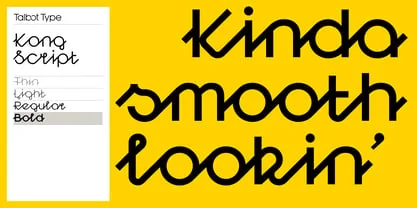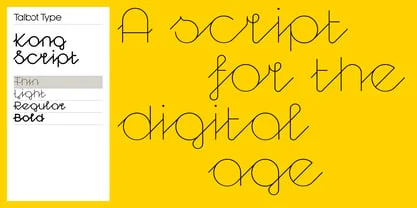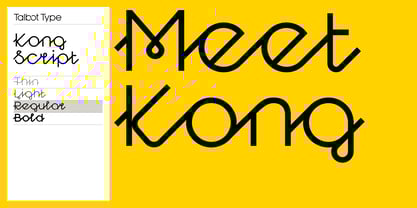
Kong Script Font
This Kong Script Font is perfect for adventure movie titles, jungle-themed entertainment, wildlife conservation materials, primate research centers, zoo and safari branding, adventure gaming graphics, tropical expedition promotions, nature documentary titles, wildlife photography studios, and powerful adventure communications.
What makes this Kong Script Font exciting is its primal power that captures the untamed strength and wild magnificence of nature's most powerful creatures and jungle adventures. The font features bold script letterforms with wild characteristics that convey primal strength, jungle authenticity, and adventurous spirit. Its untamed character and wilderness-inspired design make it ideal for brands seeking to communicate wild adventure, primal power, and jungle excellence in entertainment and wildlife markets.
The Kong Script Font family includes regular, medium, and bold weights with jungle alternates, wild variants, and primal flourishes. This comprehensive adventure font family provides designers with powerful typographic tools to create wild compositions while maintaining the primal character essential for adventure brands and wildlife communications.
Adventure entertainment companies and wildlife organizations consistently choose Kong Script Font for projects requiring authentic wild appeal and primal adventure credibility. This font's distinctive untamed character perfectly captures the jungle excellence and wild adventure that resonate with audiences who appreciate wildlife conservation, jungle exploration, and brands that embody primal strength and untamed natural power.
The powerful construction of Kong Script Font showcases boldly designed letterforms with jungle proportions that ensure exceptional impact across all adventure applications. Its wild appearance and primal character create memorable impressions while maintaining the readability necessary for effective adventure communication and wildlife materials.
Professional designers appreciate how Kong Script Font brings immediate wild authenticity and primal power to brand communications. The font's untamed nature allows organizations to communicate jungle excellence and wild adventure while maintaining the professional quality necessary for effective positioning in adventure entertainment and wildlife conservation markets.
The magnificent appeal of Kong Script Font makes it particularly effective for brands emphasizing wild adventure, primal strength, and jungle exploration. Its powerful character resonates strongly with audiences who appreciate wildlife conservation, adventure entertainment, and brands that represent the untamed magnificence and primal power of wild nature.
Whether developing branding for adventure entertainment or creating materials for wildlife conservation organizations, Kong Script Font provides the powerful typographic foundation that wild brands need to communicate their primal excellence, jungle adventure, and the untamed strength that defines wildlife conservation and adventure entertainment achievement.